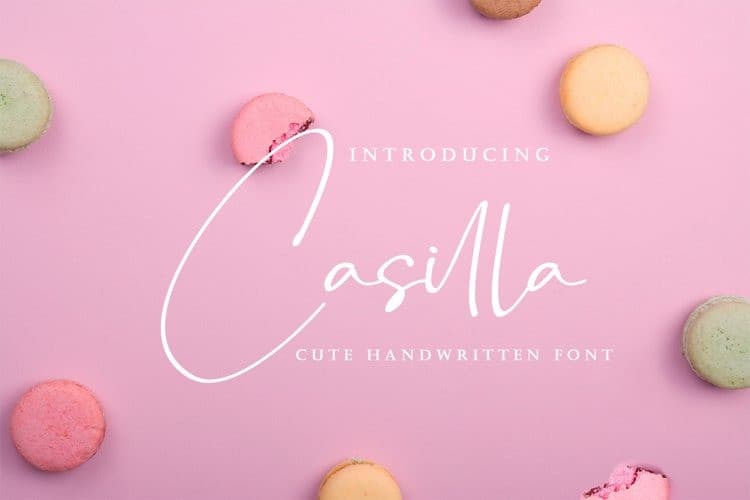
Casilla Script Font
Casilla Script Font is an elegant signature typeface. It has a dancing baseline which will give your design a fresh and modern feel. It’s designed and shared by Dav Studio. This typeface is a cute handwritten font with a natural sketch. This font is the perfect fit for all of your logos, branding, social media, and crafty DIY projects.